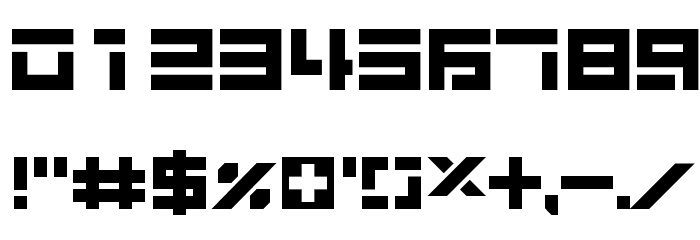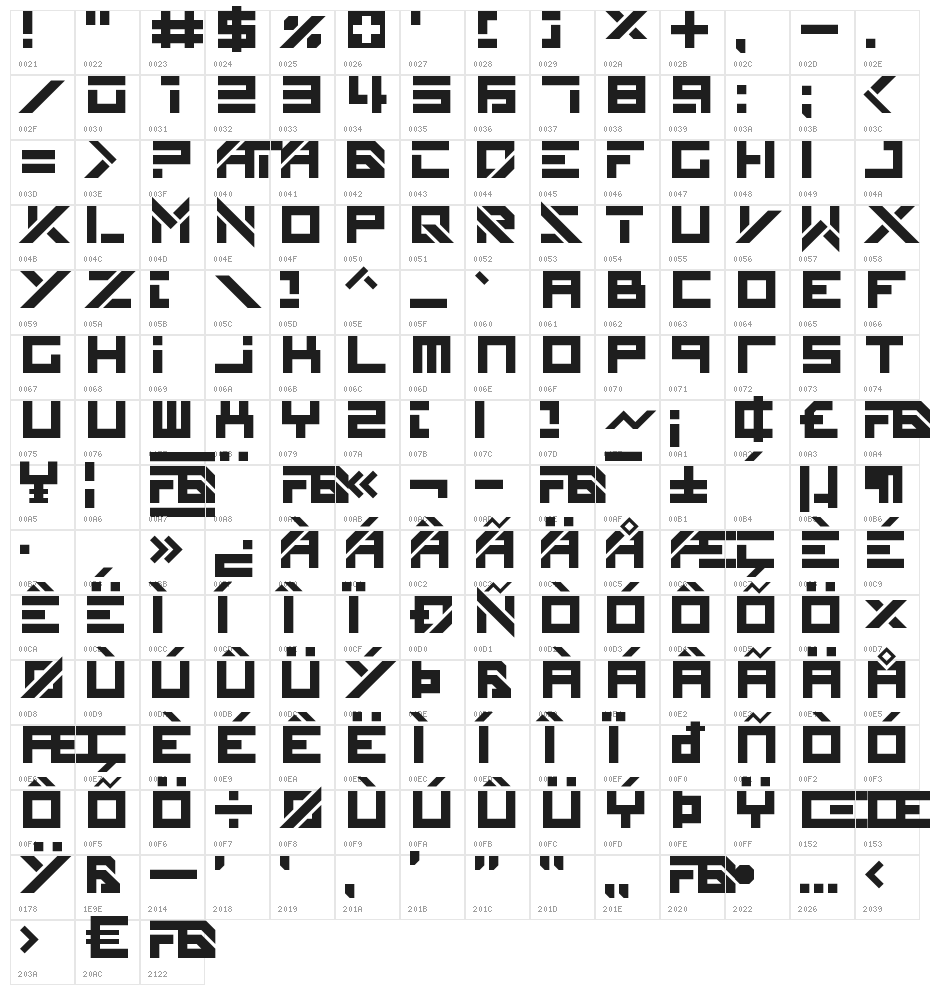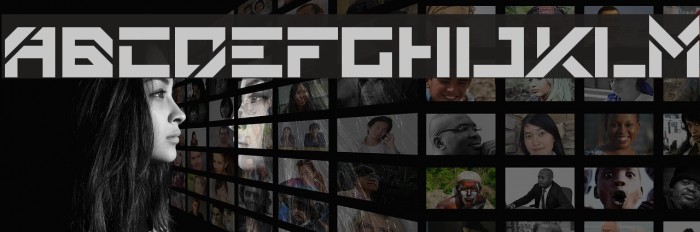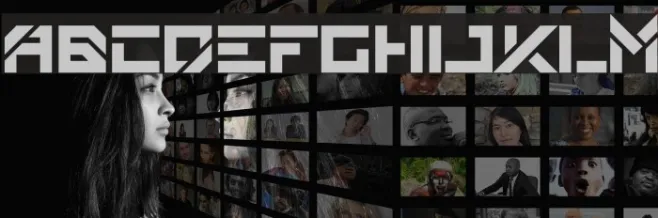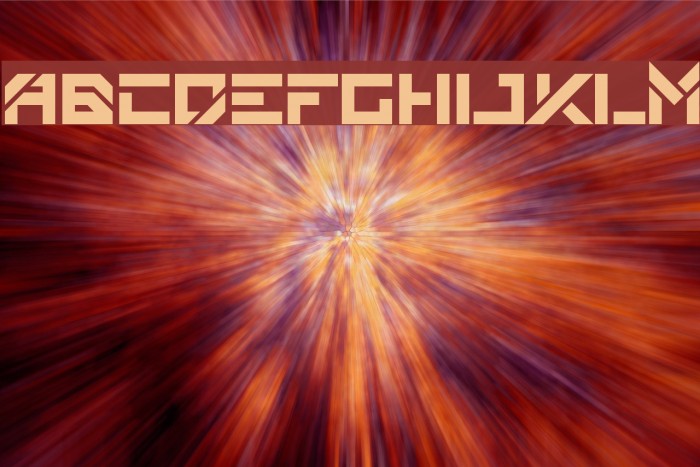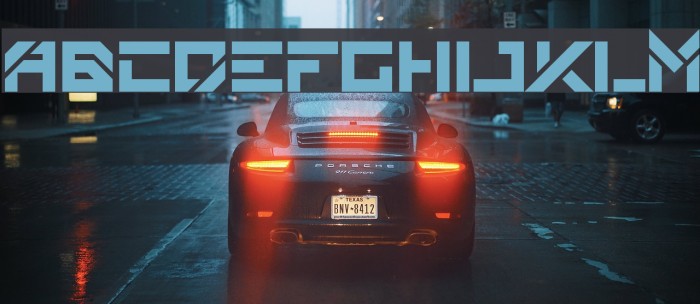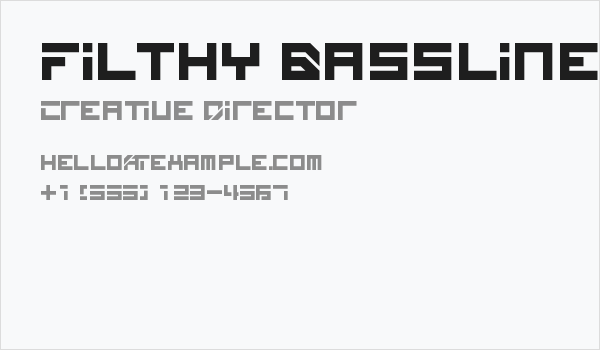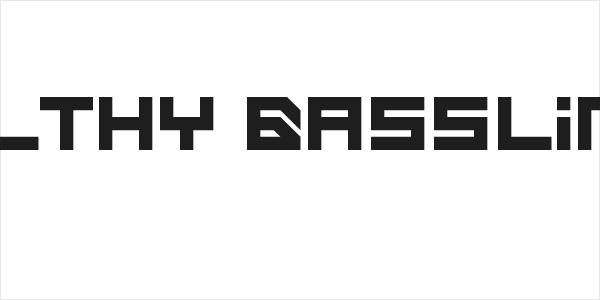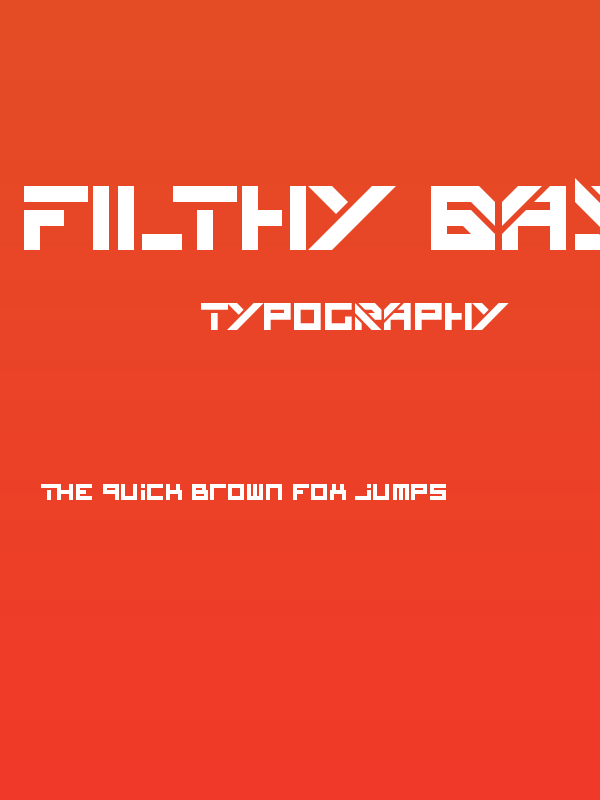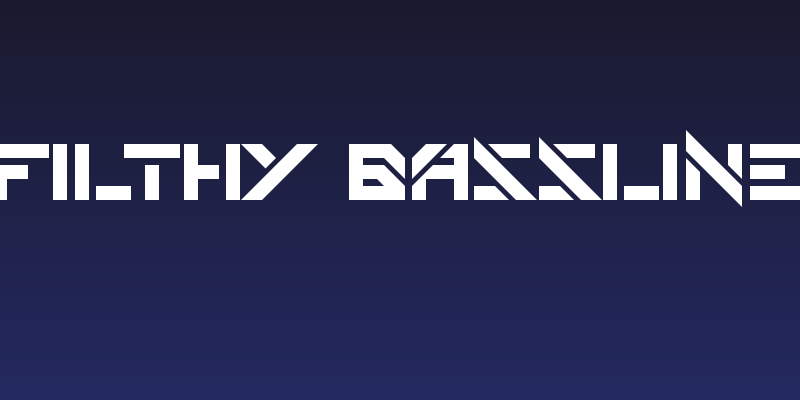
Filthy Bassline Font
Filthy Bassline Description
This font features a bold, geometric design with sharp angles and a futuristic aesthetic. The uppercase letters are characterized by their block-like structure, incorporating diagonal cuts and unique shapes that give a sense of movement and energy. The lowercase letters maintain the same boldness, with a slightly more compact form. Numbers and special characters follow the same design principles, ensuring consistency across all glyphs. The font's style is reminiscent of digital or sci-fi themes, making it ideal for projects that require a modern and edgy look.
| Proposed Projects | Ideal for use in digital media, gaming graphics, sci-fi themed posters, and modern branding projects. |